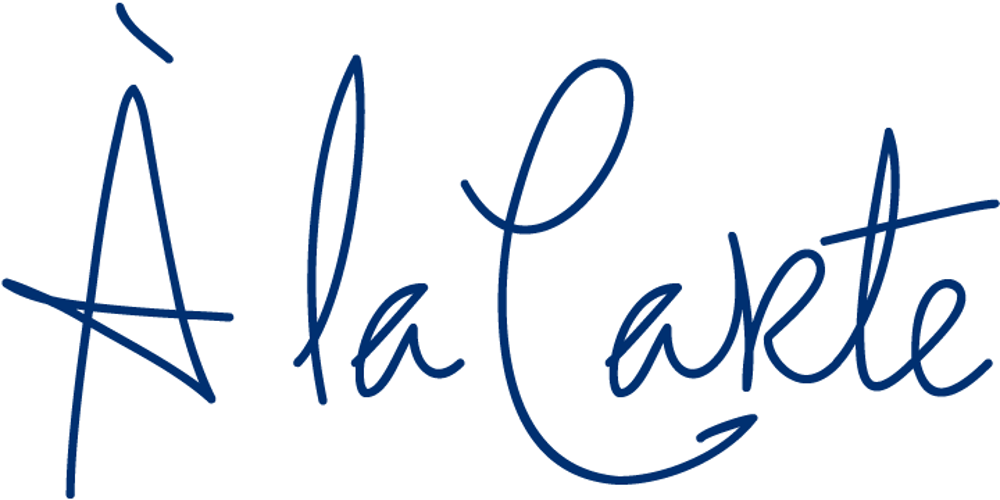
La Carte
La Carte font
La Carte Font Family was designed by Nicholas Garner and published by AVP. La Carte contains 2 styles and family package options. Inspired by a series of handwritten menus produced in 1980, La Carte is a stylish but legible script that sets as well in body copy as it does in headlines.